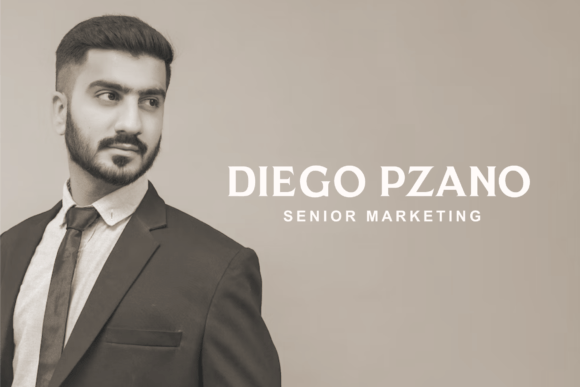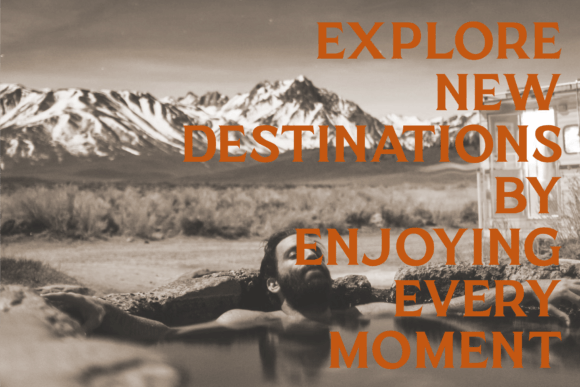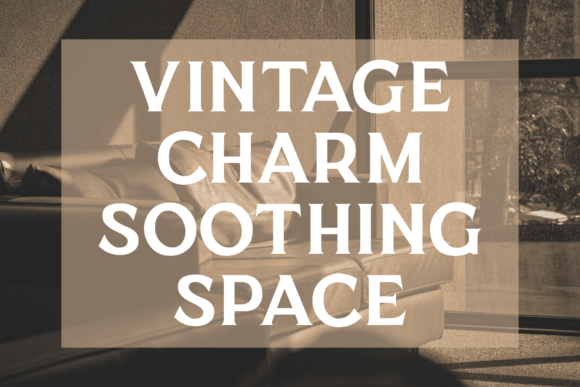
Captivating Timeless Elegance: Introducing Clephons Font
Have you ever stumbled upon an old photograph, dusty and worn, but still radiating an air of sophistication and charm? That’s the moment I think of when I look at the Clephons Font – a captivating serif display font that exudes timeless elegance.
Crafted as an all-capital typeface, Clephons Font is a homage to vintage letterforms, blending classic charm with a touch of modern sophistication. This versatile font is perfectly tailored for branding, headlines, logos, and designs with a classic or vintage theme, effortlessly capturing the essence of a bygone era.
For designers seeking to elevate their projects with a touch of refined aesthetics and enduring style, Clephons Font is a valuable addition to their toolkit. Its distinctive serifs and refined details make it a standout choice for projects that demand a touch of retro flair.
Clephons Font Key Features
- Unique Characteristics: The font features a unique blend of modern and traditional elements, with intricate details and ornate flourishes.
- Font Weight: The font has a medium to bold weight, making it suitable for headings, titles, and other display text.
Clephons Font Review
Clephons Font is an interesting font that attempts to balance modernity with classic elegance. ✨ One of its strongest points is its versatility. It can be used for both digital and print media, making it a great choice for designers looking for a font that can adapt to various contexts. ✨ The font also features a wide range of weights, from light to bold, which allows for a high level of customization.
Another positive aspect of Clephons Font is its legibility. The font is well-designed to be easily readable, even at small sizes. This makes it a great choice for body text or headlines where legibility is crucial. ✨ Additionally, the font’s subtle flair and flair-inspired details add a touch of sophistication and whimsy, making it perfect for creative projects.
Overall, I think Clephons Font is a solid choice for designers looking for a versatile and elegant font. While it has some limitations, its strengths make it a great addition to any design library.
Tips for Getting the Most Out of Clephons Font
For best results, use Clephons Font in conjunction with high-contrast colors and bold typography. Experiment with different font sizes and styles to create visually appealing designs.
Clephons Font is ideal for creative projects, such as:
- Posters and flyers
- Social media graphics
- Logos and branding materials